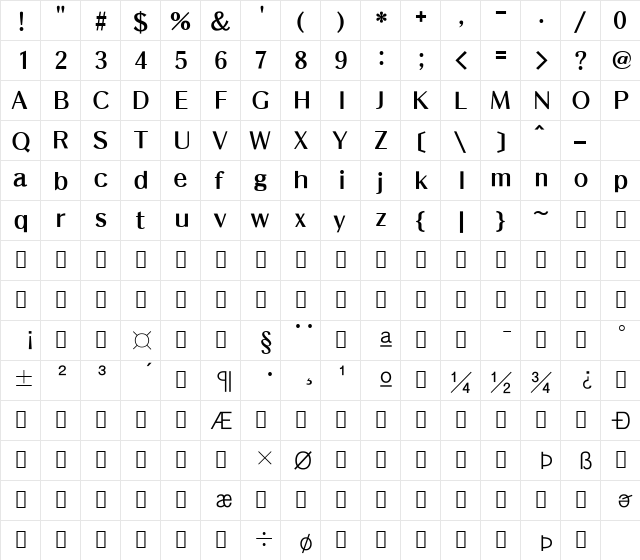
HYGraphic-Bold Regular Font Preview
HYGraphic-Bold Regular
HYGraphic-Bold Regular Font Details
Design Context for HYGraphic-Bold Typeface
HYGraphic-Bold takes a measured approach to typography — its balanced proportions and neutral character make it a reliable workhorse for both digital and print work. The heavy weight commands attention and anchors typographic hierarchies.